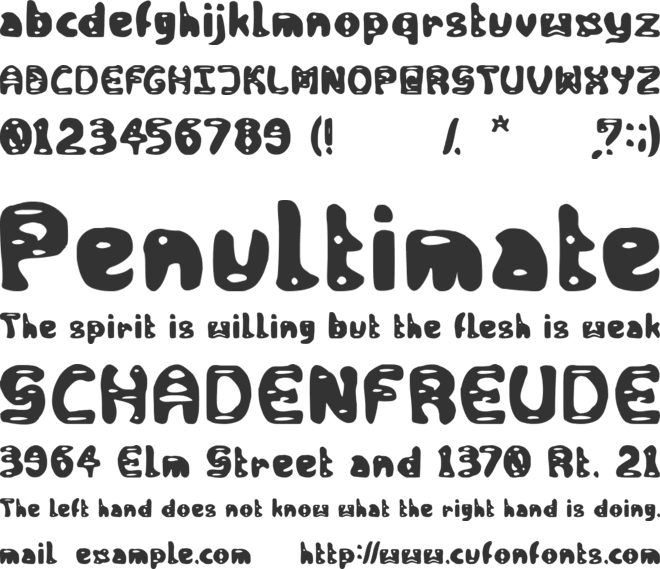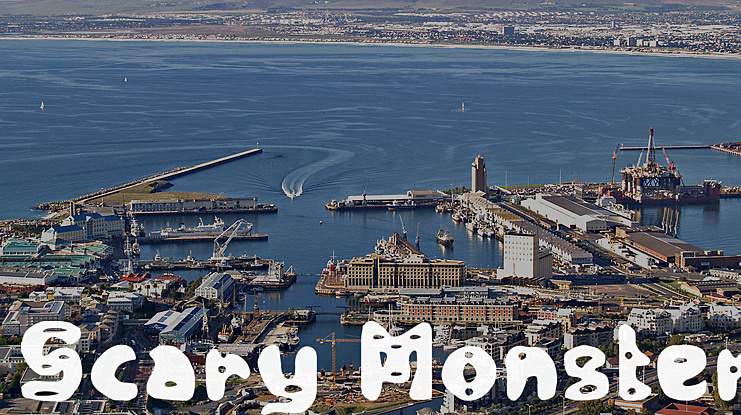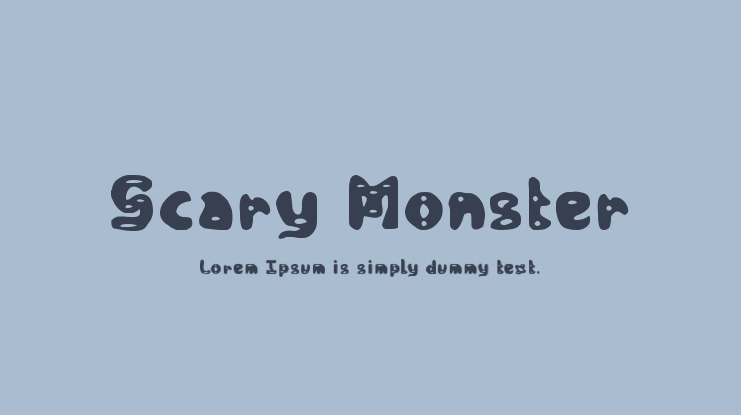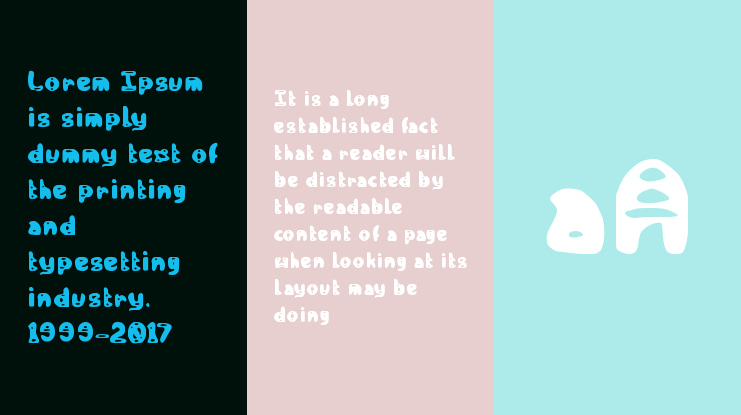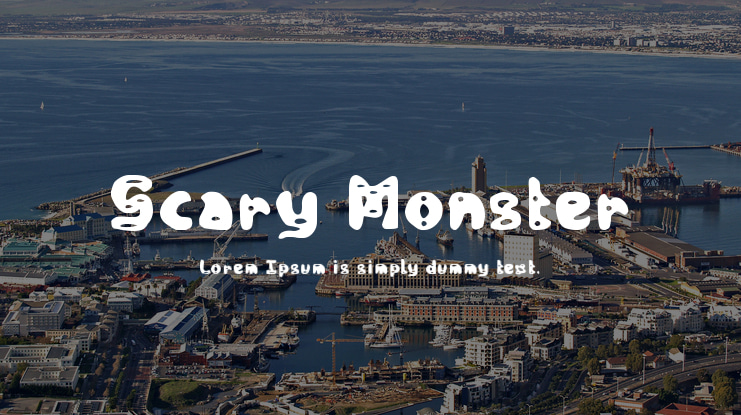
Scary Monster Font
This font is inspired by Big Monster & Little Monster, fonts previously created by Jack Oatley, which have been revised by Francis Fonye to give it a new look.